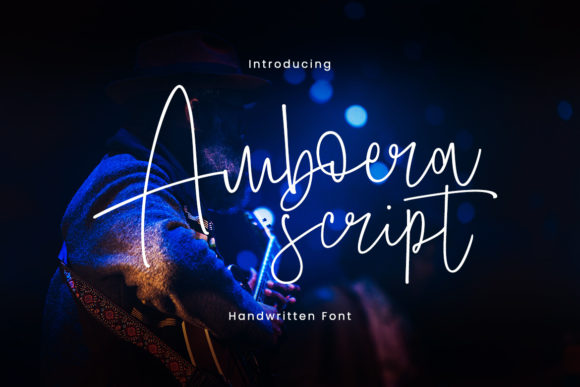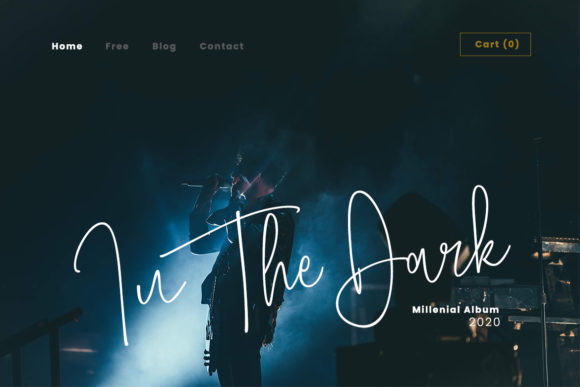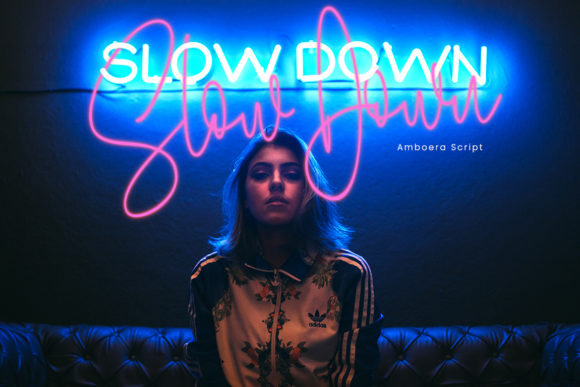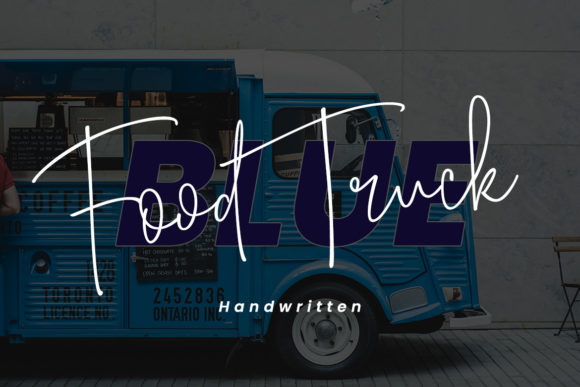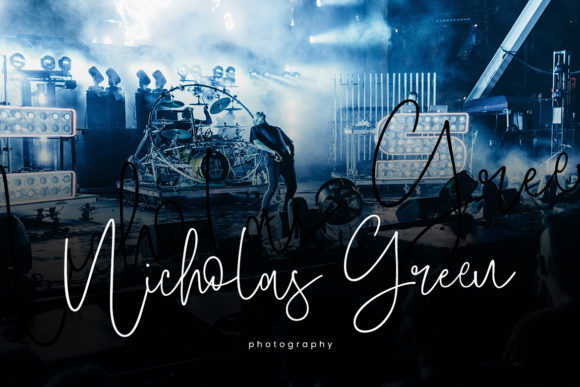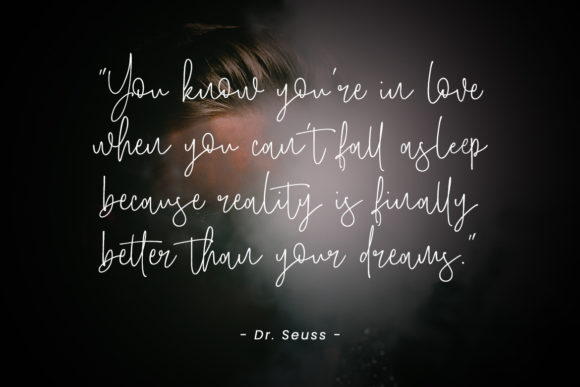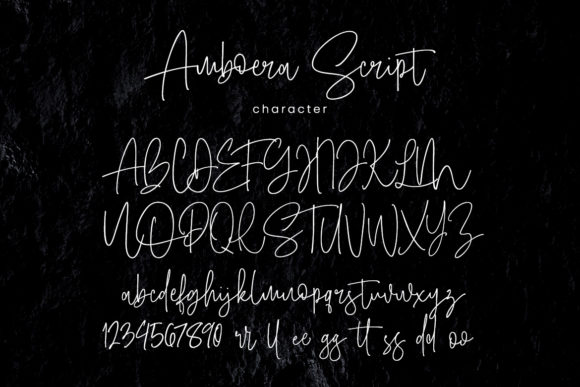
Amboera Script Font
About Amboera Script Font
Amboera Script simplifies elegance into one truly outstanding script font. Whether you’re looking for fonts for Instagram or calligraphy scripts for DIY projects, this font will turn any creative idea into a true piece of art!